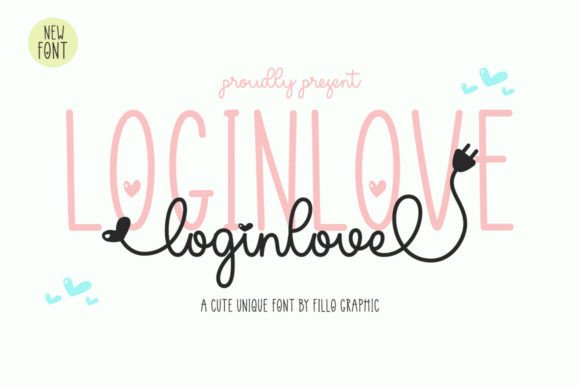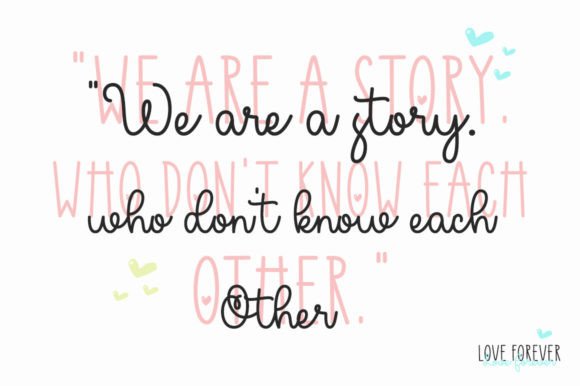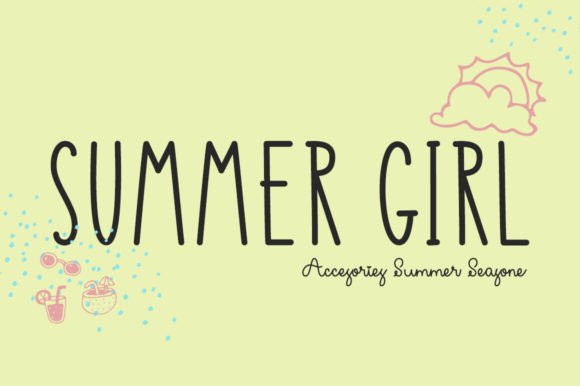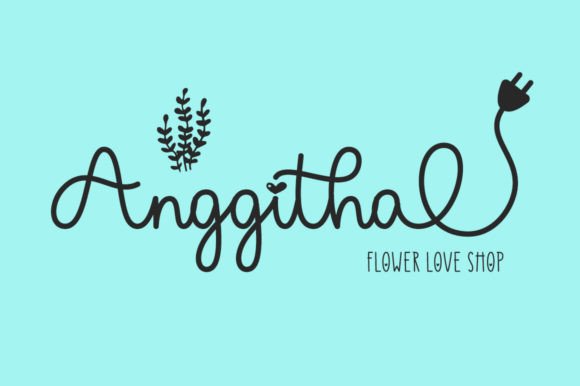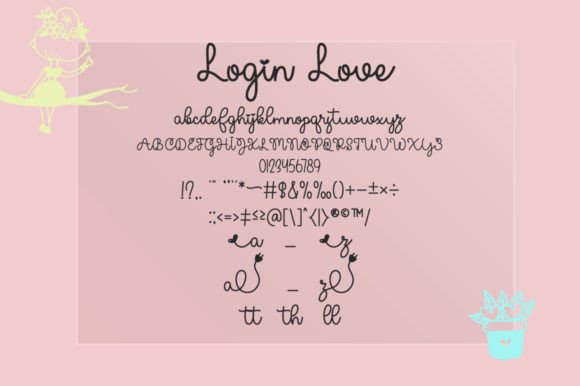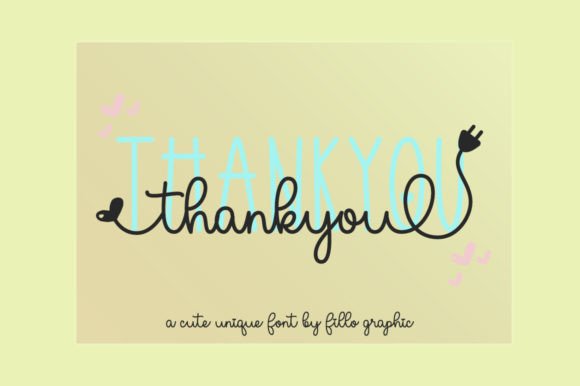
Login Love Font
Login Love consists of two handwritten fonts designed to complement each other perfectly. Together or apart, these fonts are ideal for adding a chic and cheery touch to your crafts.Login Love is PUA encoded which means you can access all glyphs and swashes with ease!